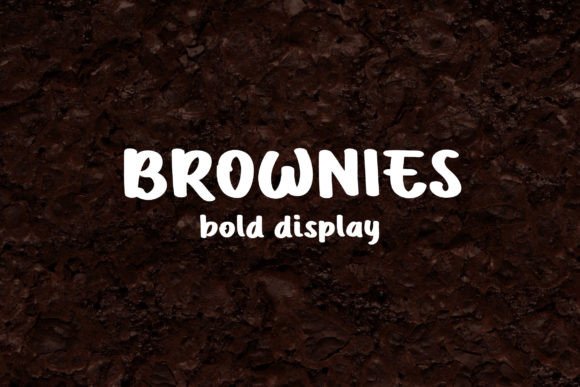
The Sweet Spot: Discovering the Charm of Brownies Font
I’ll never forget the time I was working on a children’s book project, and my client asked me to create a cover that would appeal to kids and parents alike. I spent hours scouring font libraries, but nothing seemed quite right. That was until I stumbled upon Brownies Font. This bold display font with its cute and playful characters instantly captured the whimsical feel I was looking for. In this article, I’ll share my experience with Brownies Font, its features, and how to make the most of it in your designs.
A First Impression: What I Love About Brownies Font
Here’s what makes Brownies Font stand out:
- ✨ Playful and Cute Characters: Each letter is designed to be fun and engaging, making it perfect for children’s books, posters, and social media content.
- ✅ Bold and Eye-catching: The font’s bold nature ensures it stands out, whether used for titles, headings, or even logos.
- 💡 Versatile: Brownies Font can be used in a variety of projects, including book titles, storybooks, music covers, advertisements, and more.
An Honest Review: The Not-Perfect-but-Almost-There Part
No font is perfect, and Brownies Font has a few quirks:
- 🤔 Limited Use in Body Text: Due to its bold nature, Brownies Font might not be the best choice for lengthy body text. It’s ideal for headlines and titles.
- ⚠️ Glyph Support: While it has a good range of characters, some special glyphs or diacritics might be limited or require additional setup.
The Story Behind Brownies Font
The creator of Brownies Font aimed to craft a typeface that embodies playfulness and charm. Inspired by childhood memories of baking and sweet treats, the designer sought to bottle that whimsy into a font that’s both fun and functional. The result is a font that’s perfect for projects needing a touch of innocence and joy.
Q: Does Brownies Font support OpenType features?
A: Yes, Brownies Font offers some OpenType features, including stylistic alternates and glyphs, which can enhance your designs.